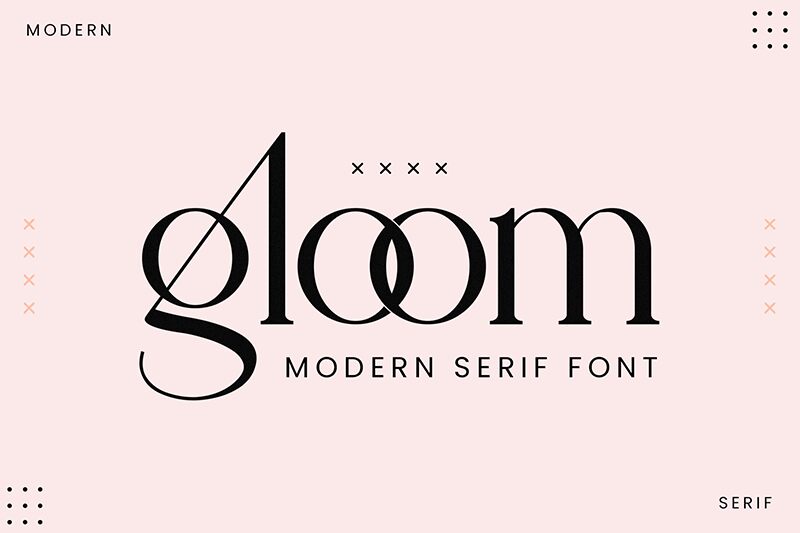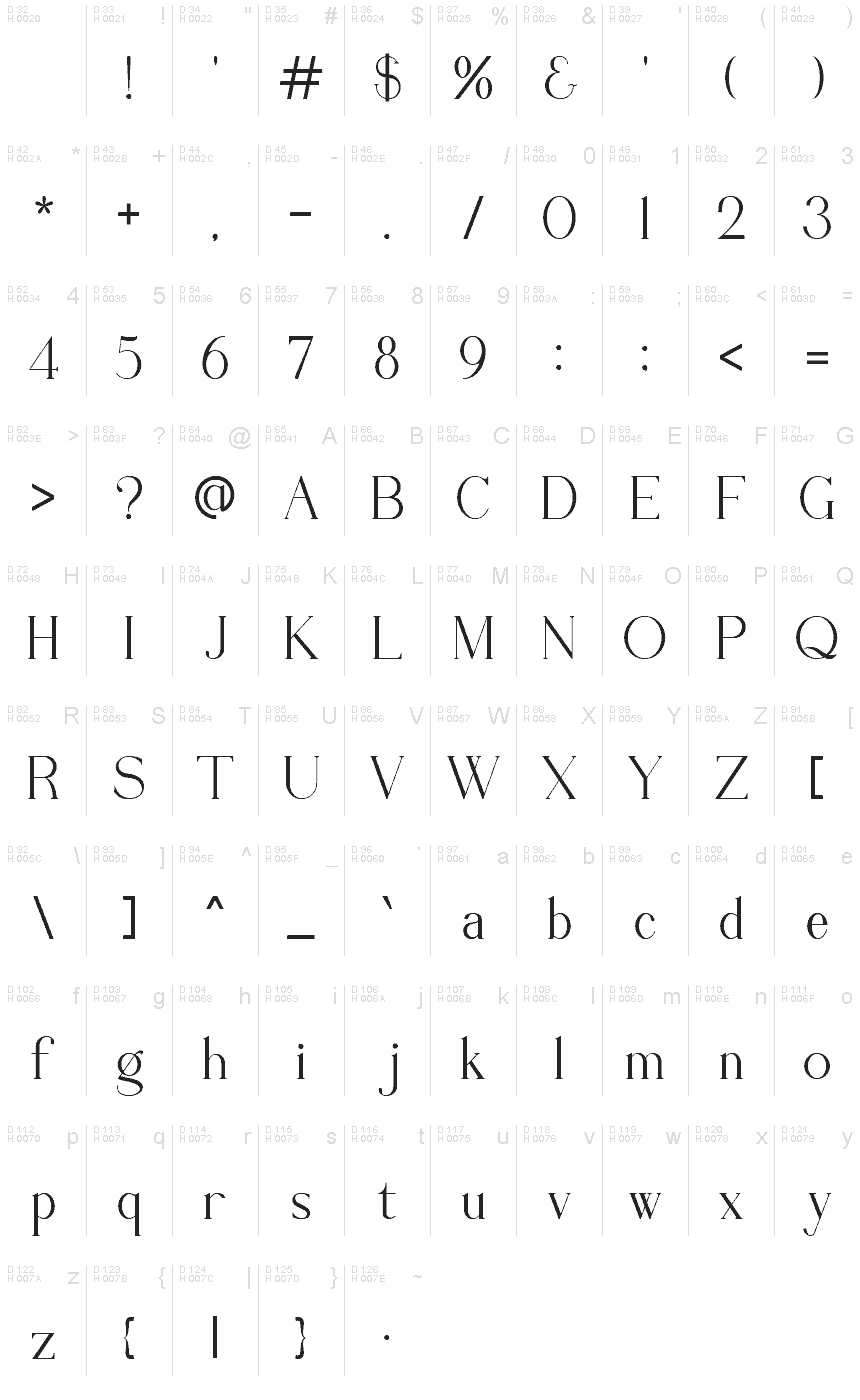
Gloom
Gloom font by Ahmad Riqi is a free serif font with a uniquely captivating style suitable for some specific applications. It’s for certain reasons not your typical serif font which makes it possible to match some very unique design visions you might have been struggling to realize.
Premade invitations, book covers, certificates, posters, headlines, logos; these are just a few possible use cases of Gloom. The designer can actually match it with the classic serifs if mutual vibes and styles are achieved using any creative visual process. Gloom is free so don’t hesitate to experiment with it in an intuitive playful way.